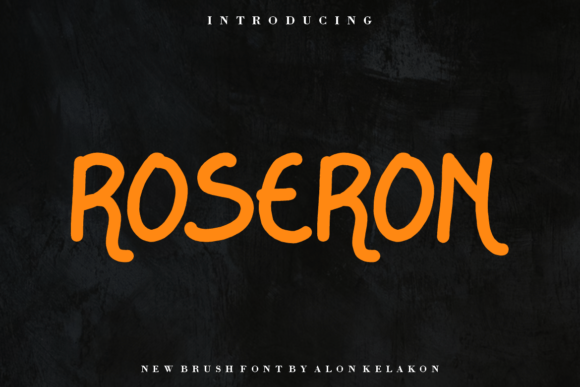
Prepare to be captivated by Roseron Font, an exquisite script font family, meticulously designed to bring a touch of elegance and charm to your creative projects. With its fluid strokes, delicate curves, and distinctive letterforms, Roseron Font effortlessly adds a personal touch to any design.
Unleash your creativity and let Roseron Font take center stage in your designs. Create captivating logos that exude sophistication, craft stunning invitations that leave a lasting impression, or design elegant social media graphics that capture the attention of your audience. Embrace the versatility of Roseron Font and explore its potential in branding, packaging, and countless other applications.
Immerse yourself in the beauty of Roseron Font and experience the joy of creating designs that truly resonate with your audience. Let your imagination soar as you explore the endless possibilities of this enchanting font family. Transform your words into works of art and captivate your audience with the timeless allure of Roseron Font.